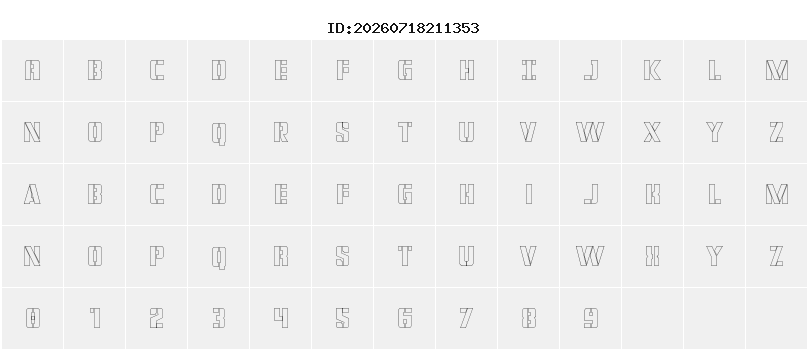
Covert Ops Outline.ttf is a modern, elegant sans-serif font designed for ultimate readability and visual harmony. Perfect for branding, headlines, web design, and print materials.